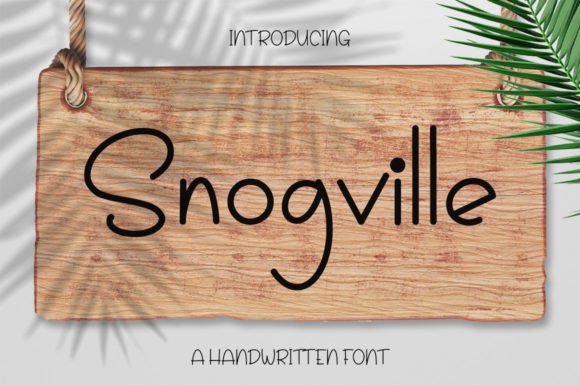
Prepare to be mesmerized by the enchanting Snogville font, a masterpiece crafted from the heart of the digital realm by the renowned Nirmala Creative. This exquisite script font possesses an alluring personality, exuding an irresistible charm that will leave you spellbound.
Lose yourself in the beauty of Snogville, where each letter dances across the screen with an unmatched grace, inviting you to explore a world where elegance and sophistication collide. Experience the joy of personalizing your creations, adding a touch of warmth and individuality to every design you envision.
With Snogville, the possibilities are endless. Let your imagination soar as you craft captivating invitations that evoke a sense of wonder, heartfelt thank you cards that convey your gratitude with style, or inspiring quotes that ignite the fire within. Breathe life into your greeting cards, making them cherished keepsakes that evoke cherished memories.
Businesses will find Snogville an invaluable asset, empowering them to create logos that command attention, business cards that leave a lasting impression, and marketing materials that resonate with your target audience. Snogville's versatility knows no bounds, making it the perfect font for any design project that demands a touch of enchantment.
Step into a world where creativity knows no limits. Embrace the magic of Snogville and witness the transformation of your designs into captivating masterpieces. Let this extraordinary font ignite your imagination and guide you on a journey where every word you write becomes a work of art.